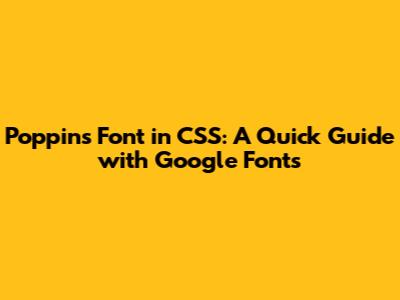
Poppins Font In CSS: A Quick Guide With Google Fonts
Hey guys! Ever wondered how to jazz up your website with a sleek and modern font? Let's dive into using the Poppins font from Google Fonts in your CSS. It's super easy, and I promise you’ll be rocking a stylish look in no time! This comprehensive guide walks you through every step, ensuring that you can seamlessly integrate Poppins into your website and elevate its design. We will cover everything from linking the font using various methods to applying it to your text elements effectively.
Why Choose Poppins?
First off, why Poppins? Well, this font is a geometric sans-serif typeface that’s all about clean lines and readability. It’s incredibly versatile, making it perfect for everything from headings to body text. Plus, it’s a Google Font, which means it’s free and easy to use! The balanced design of Poppins ensures it remains legible across different screen sizes and resolutions, which is crucial for providing a seamless user experience. Its modern aesthetic can significantly enhance the visual appeal of your website, making it look professional and contemporary. Furthermore, Poppins supports a wide range of characters and languages, making it an excellent choice for international websites.
Poppins’ neutrality makes it suitable for various design styles, whether you’re aiming for a minimalist look or something more vibrant and dynamic. It pairs well with other fonts, giving you the flexibility to create unique typographic combinations. When used correctly, Poppins can improve the overall readability and accessibility of your content, which is vital for engaging your audience. Its clear and straightforward letterforms ensure that your message is conveyed effectively, regardless of the device or browser being used. Therefore, selecting Poppins is not just about aesthetics; it’s about enhancing the functionality and user-friendliness of your website.
Method 3: Downloading and Hosting Locally
For those who prefer to host fonts locally, here’s how:
1. Download the Fonts: On the Google Fonts page for Poppins, click the “Download family” button in the top right corner.
2. Unzip the Files: Extract the downloaded ZIP file. You’ll find .ttf (TrueType Font) or .otf (OpenType Font) files.
3. Create a Fonts Folder: In your project directory, create a folder named fonts (or anything you like).
4. Move Fonts to Folder: Move the .ttf or .otf files into the fonts folder.